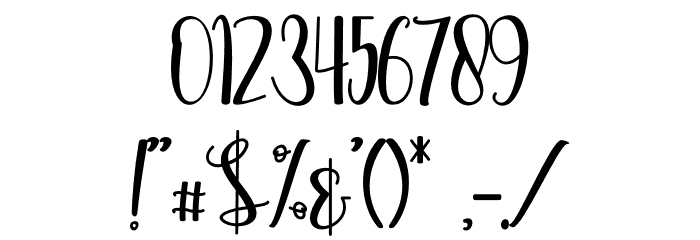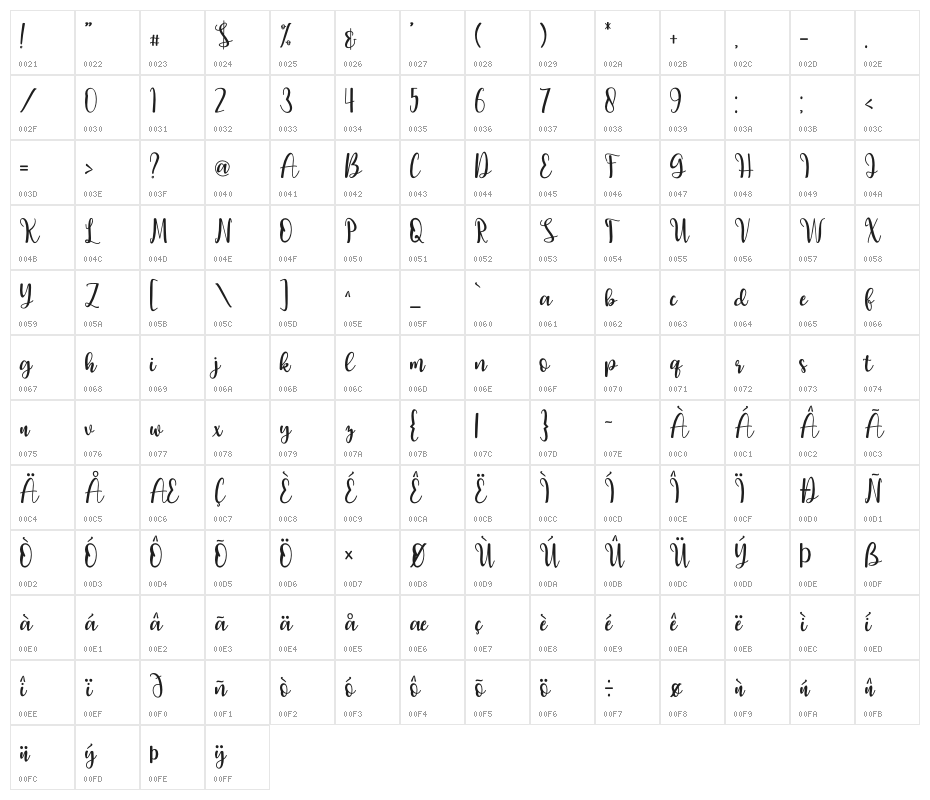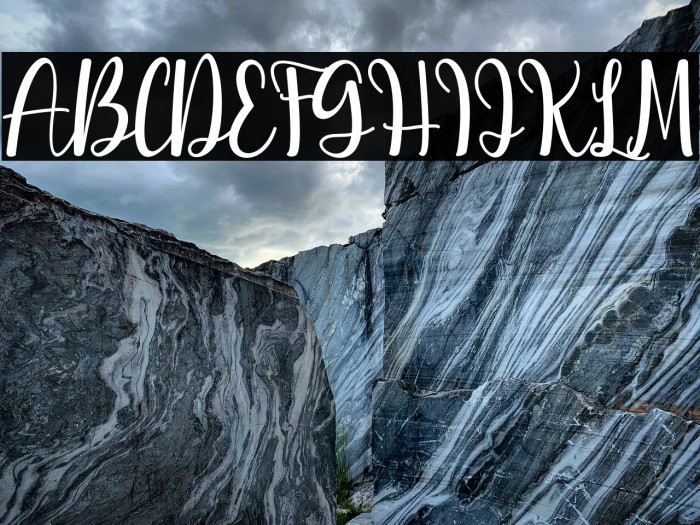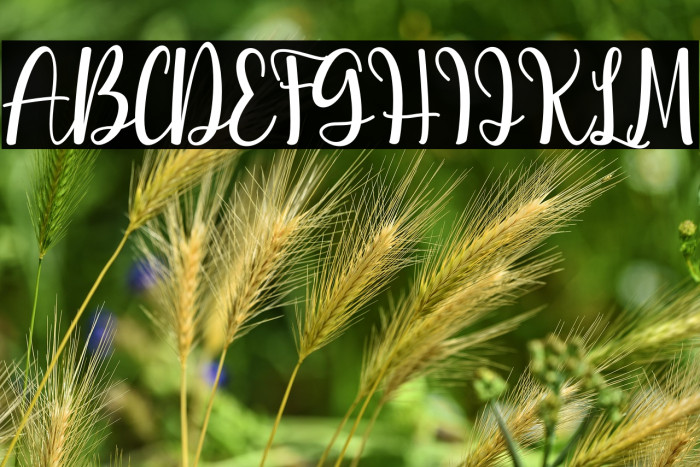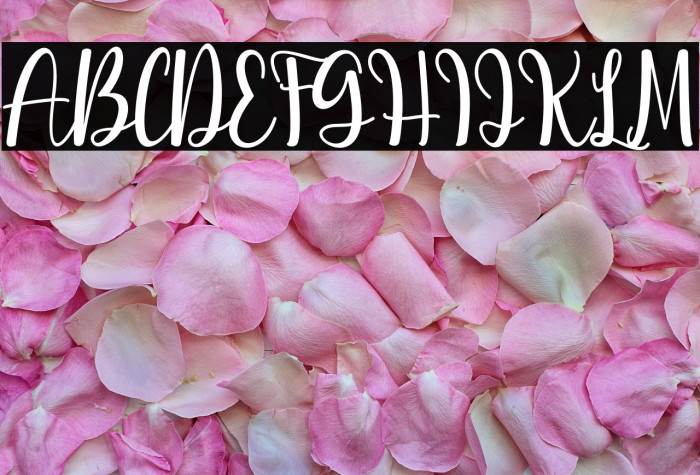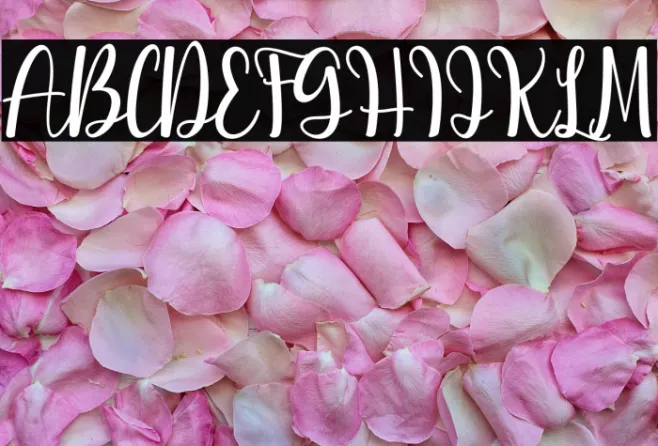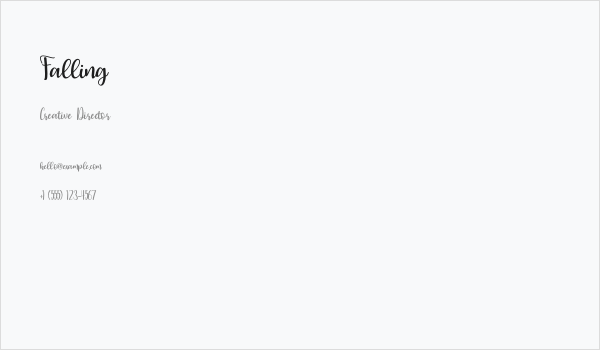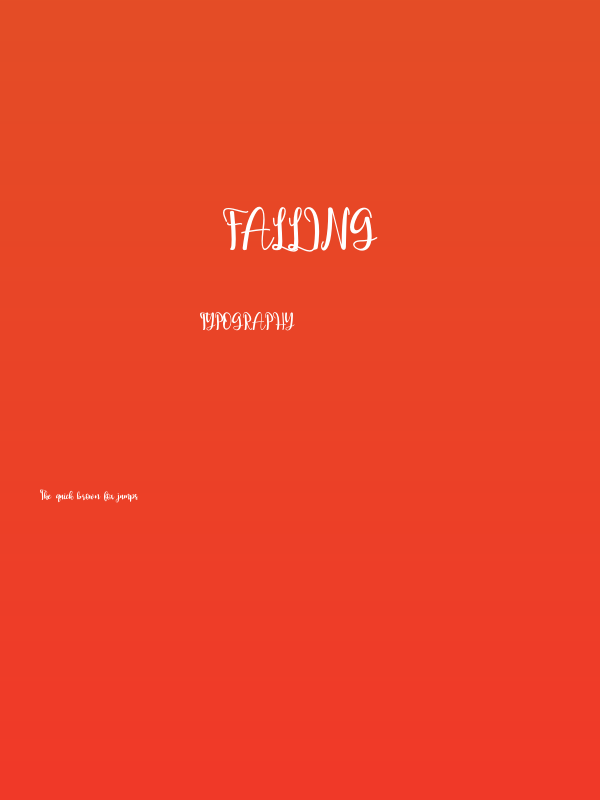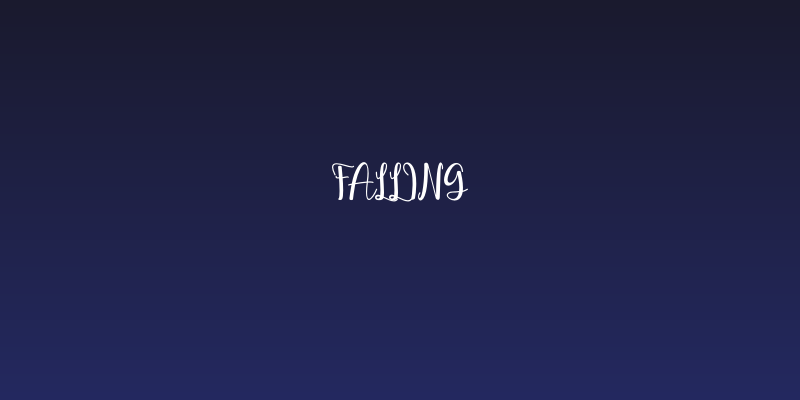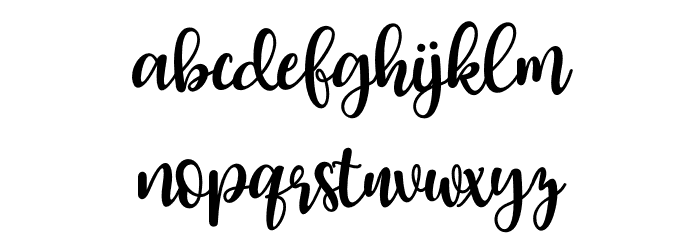
Falling Font
Falling Description
This font features a playful and elegant script style with a handwritten feel. The uppercase letters are tall and slightly narrow, with flowing lines and occasional loops that add a whimsical touch. The lowercase letters maintain a consistent style, with smooth curves and a moderate slant, enhancing the font's fluidity. Numbers and special characters are designed to match the overall aesthetic, with similar curves and decorative elements. The font's overall appearance is both stylish and approachable, making it suitable for a variety of creative projects.